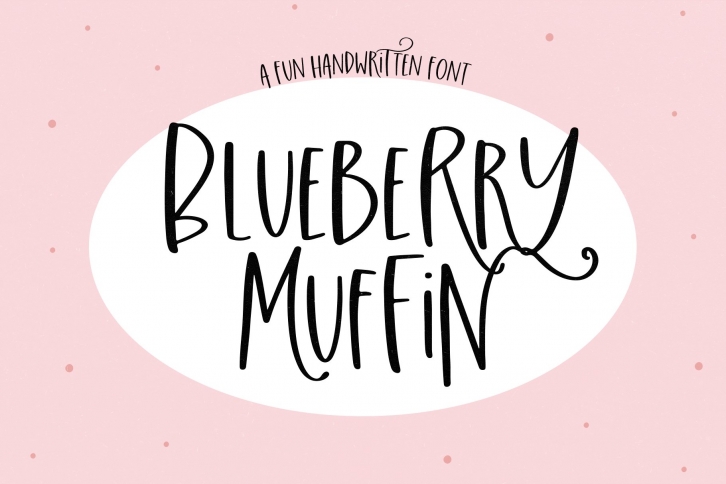
Blueberry Muffin - A Fun Handwritten Font Download
Blueberry Muffin is a gorgeous font that was realeased on July 11, 2020. The font can be used in many style contexts and design environments. Perfect for invitations, magazines, websites, logos, and more! It was designed by KA Designs and the file size is 15.18 MB. Thanks for checking out this font!